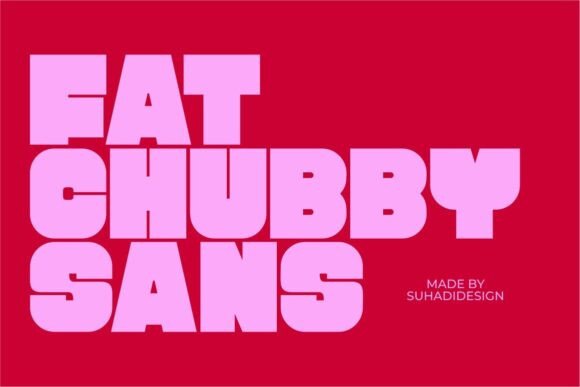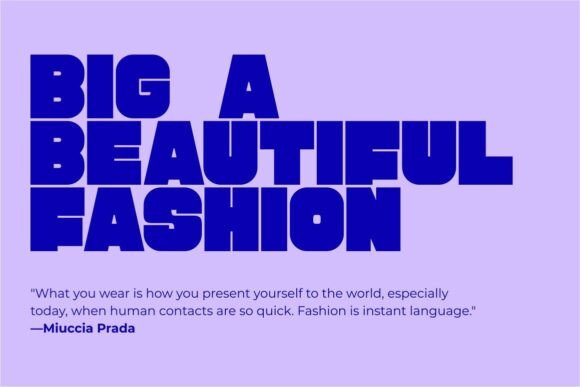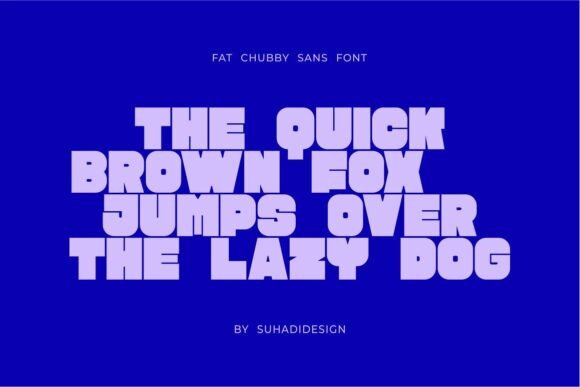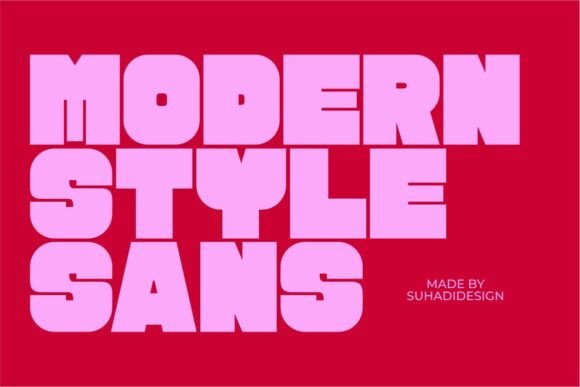
Fat Chubby Font
About the Fat Chubby Font
Let us introduce you to Fat Chubby Font, where timeless design meets modern craftsmanship. The Fat Chubby Sans Font is a modern sans-serif typeface designed to stand out and become a market favorite. It combines elegance, class, and contemporary style, making it versatile and easy to use. This font is perfect for a variety of projects, including magazines, book covers, shopping bags, packaging, logos, labels, fashion designs, posters, banners, branding, quotes, and more.
With Fat Chubby Sans, you’ll enjoy creating designs that truly pop and elevate your work to the next level.
Its bold, playful nature makes it ideal for headlines, short text blocks, and branding applications where a strong visual impact is desired. It excels in poster design, packaging for premium products, and logo creation, adding a touch of contemporary flair. However, its weight and character spacing make it less suitable for body text or UI elements requiring high readability in long paragraphs.
Consider pairing Fat Chubby Sans with a clean, minimalist sans-serif like Lato for a balanced contrast, or a classic serif like Garamond for a sophisticated juxtaposition. For a more playful feel, a script font with a similar weight could be used sparingly as an accent.
The overall personality is best described as bold and friendly, yet refined; its confident presence conveys both approachability and high-quality design.
Fat Chubby Font Usage Examples
Fat Chubby Font Example